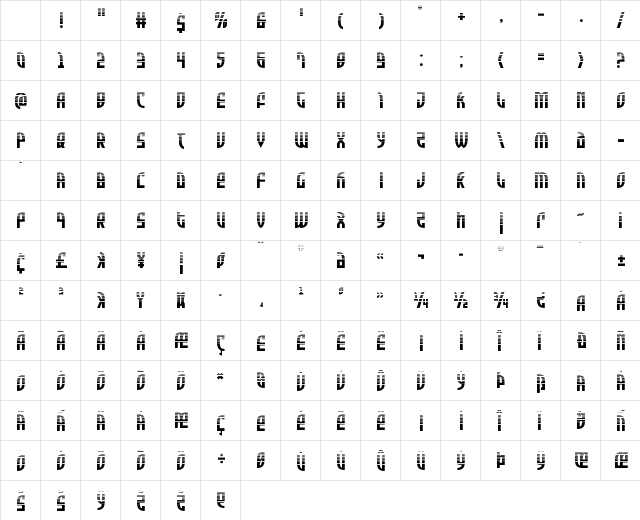
Zone Rider Halftone Regular
Zone Rider Halftone Family
Design Context for Zone Rider Halftone
Zone Rider Halftone is a composed and adaptable typeface that performs quietly and consistently across a wide range of design contexts.